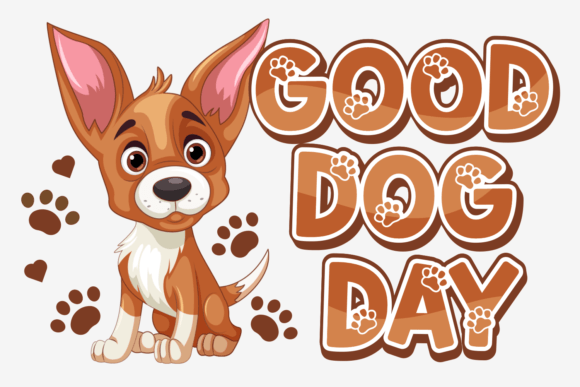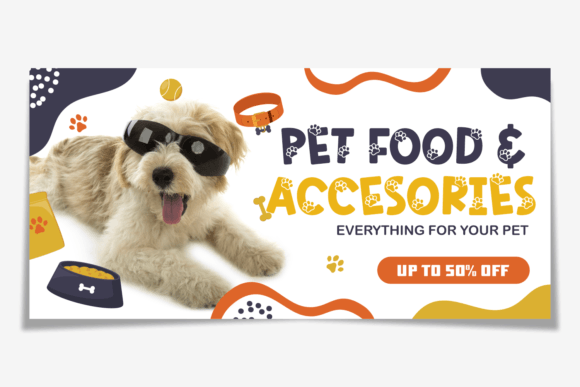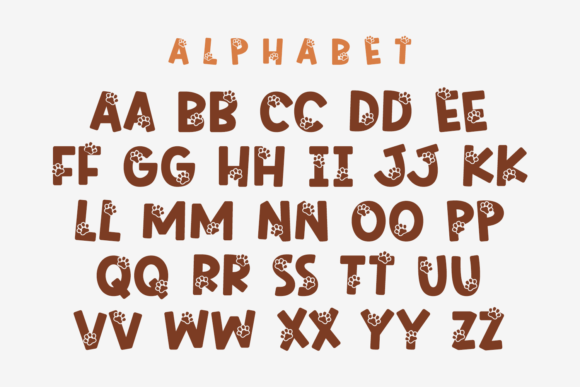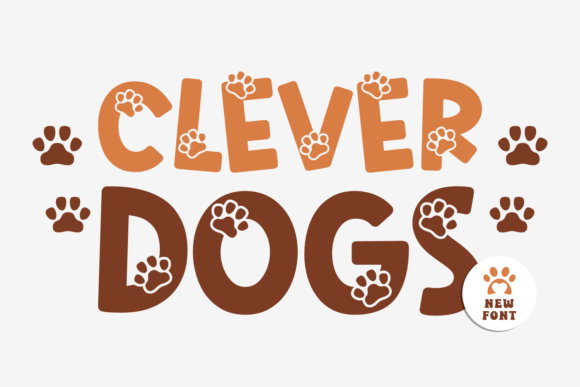
Clever Dogs Font
About the Clever Dogs Font
The Clever Dogs Font offers a perfect balance of form and function for your design needs. Clever Dogs is a fun and cute font where each letter has little paw prints on it. It’s perfect for making anything look playful and dog-themed.
Clever Dogs excels in applications requiring a lighthearted and approachable aesthetic. Ideal uses include children’s books, pet-related branding, playful posters, and social media graphics. It’s also well-suited for packaging designs for products targeting a younger demographic. However, its playful nature makes it unsuitable for large blocks of body text or applications demanding high readability, such as website UI or lengthy documents.
Pairing Clever Dogs with a clean sans-serif like Open Sans for body copy creates a balanced contrast; the playful display font is offset by a highly legible text face. For a more sophisticated feel, consider pairing it with a classic serif like Garamond, which adds a touch of elegance to the overall design. Avoid pairing it with other similarly whimsical fonts, as this might create visual clutter.
The font’s core personality is undeniably playful and friendly, conveying a sense of fun and approachability. Its inherent charm makes it particularly effective in projects aimed at children or those seeking a lighthearted brand identity.
Clever Dogs Font Usage Examples
Clever Dogs Font Example